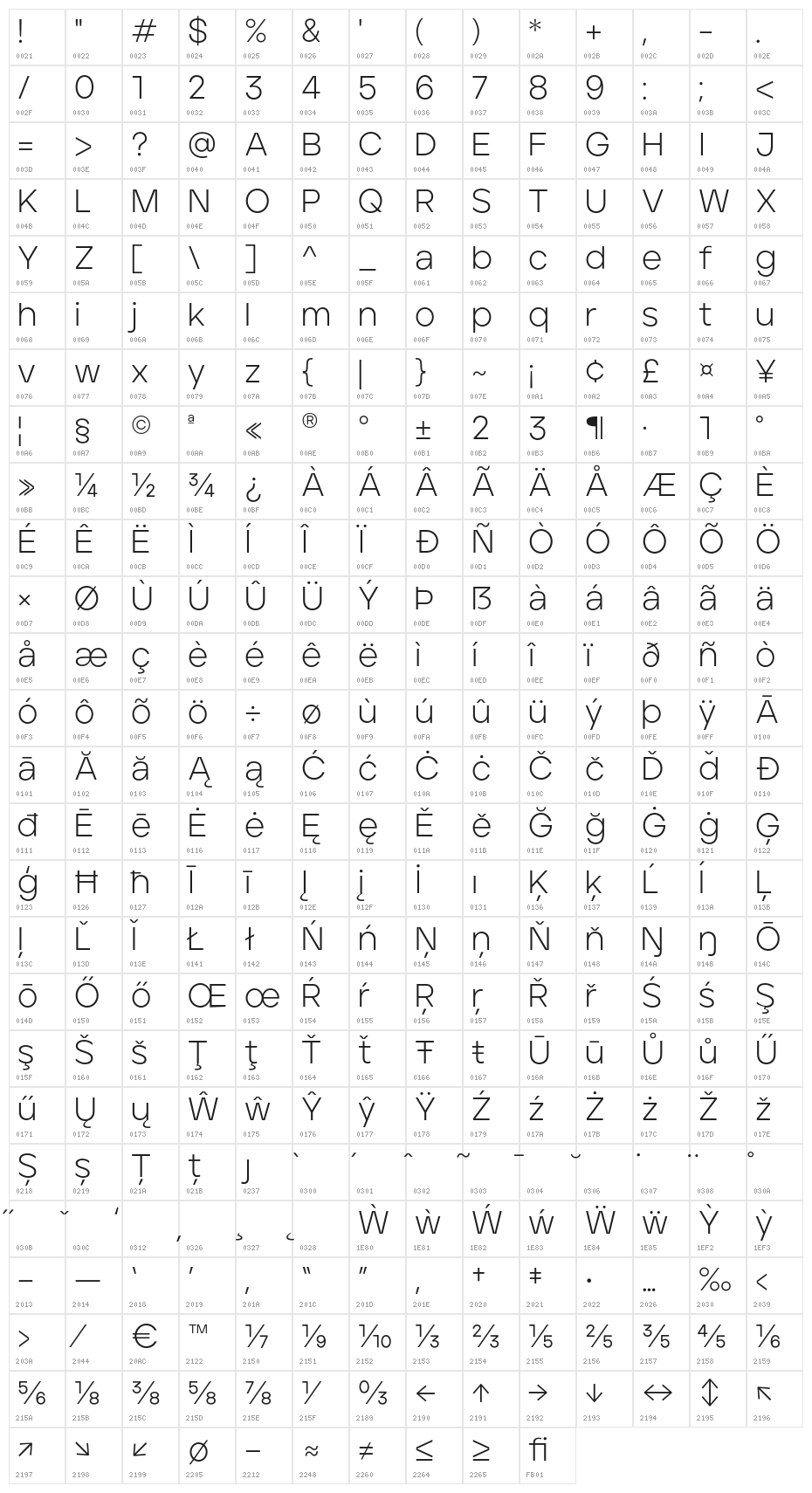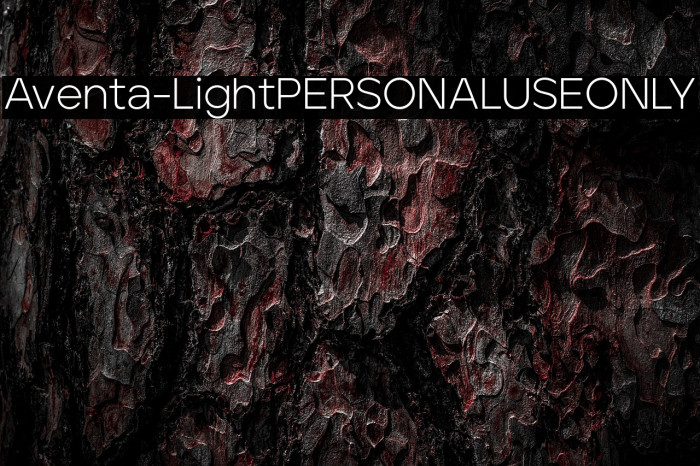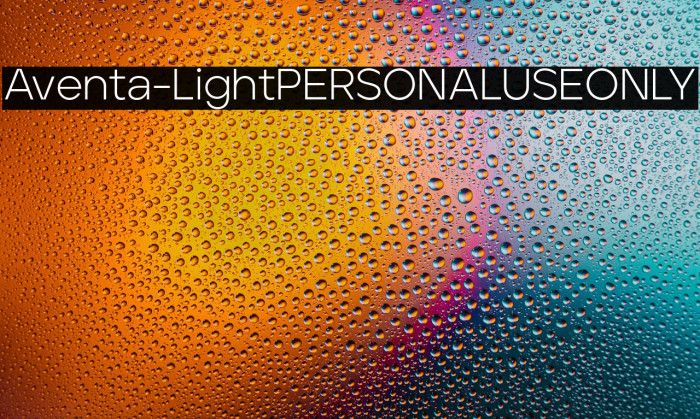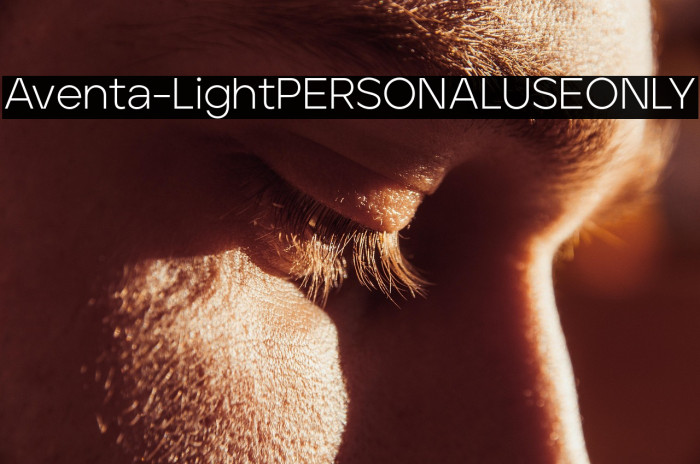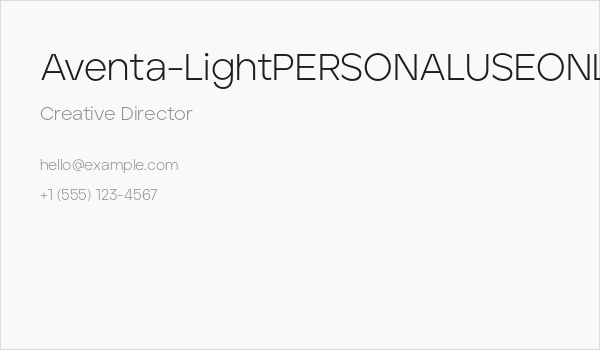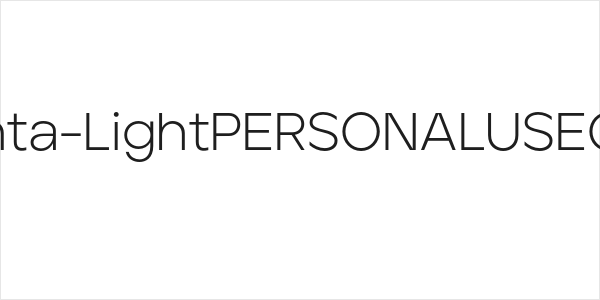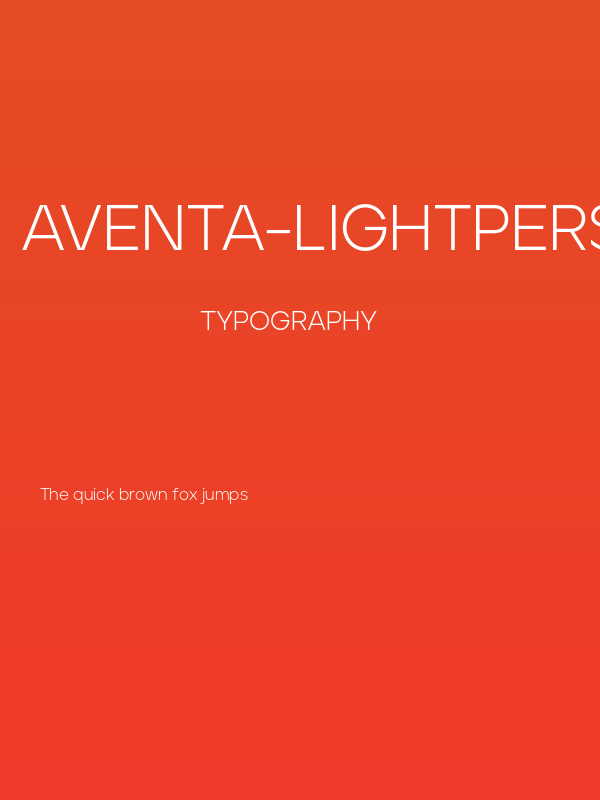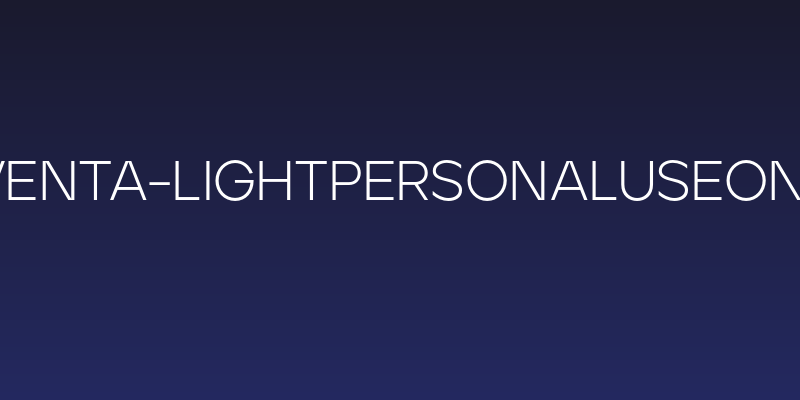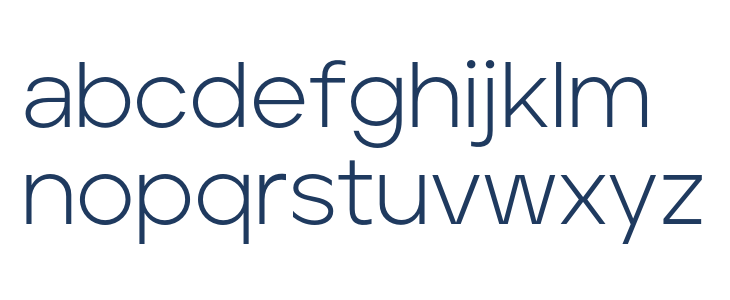
Aventa-LightPERSONALUSEONLY Font
Aventa-LightPERSONALUSEONLY Description
This font features a clean and modern sans-serif design with a geometric structure. The characters are evenly spaced and exhibit a uniform stroke width, providing a sleek and minimalist appearance. The uppercase letters are bold and assertive, while the lowercase letters maintain a consistent and harmonious flow. The numerals are clear and legible, making them suitable for various applications. Special characters are included, maintaining the overall aesthetic of simplicity and clarity. This font is versatile and can be used in a wide range of design projects.